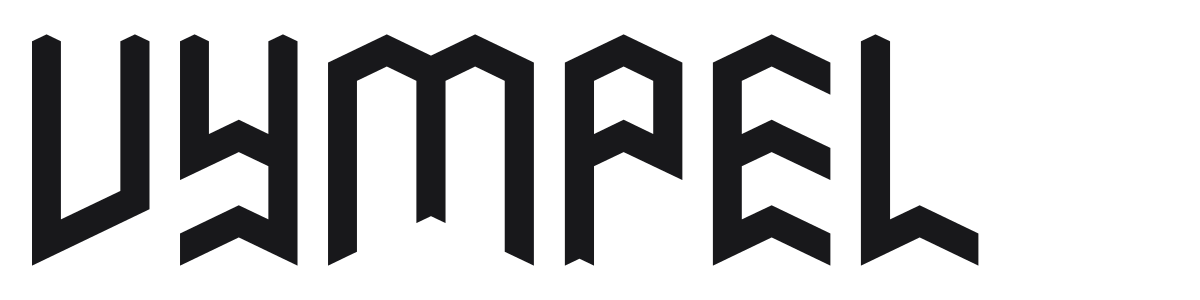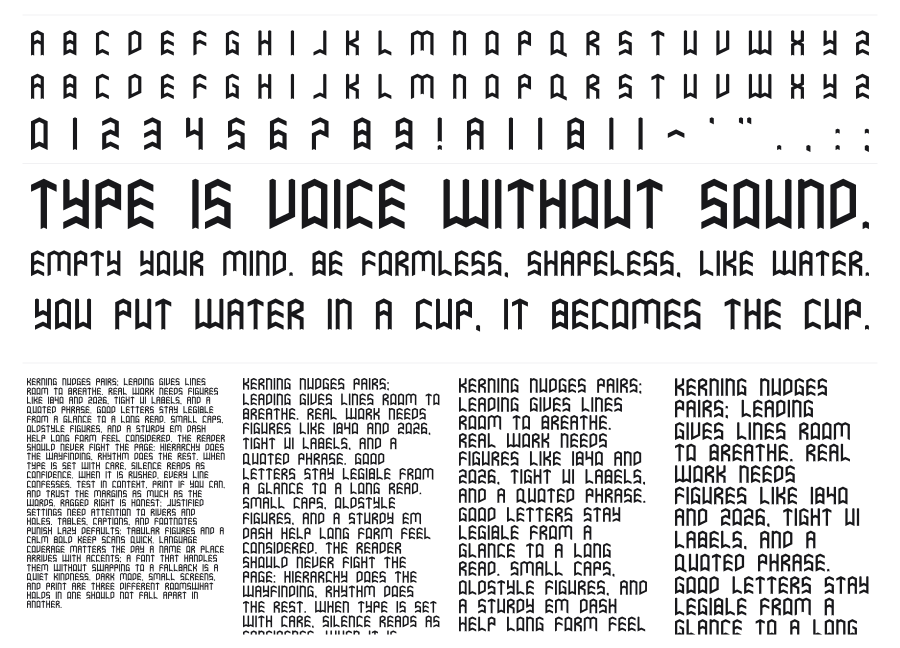
Vympel
Vympel is a bold angular display font built entirely from sharp geometric cuts and diagonal notches, with no curves anywhere in the design. The heavy monoweight construction and faceted character shapes draw on Soviet constructivist and Eastern European sports typography traditions. It works best at large sizes for headlines, team jerseys, and aggressive branding.